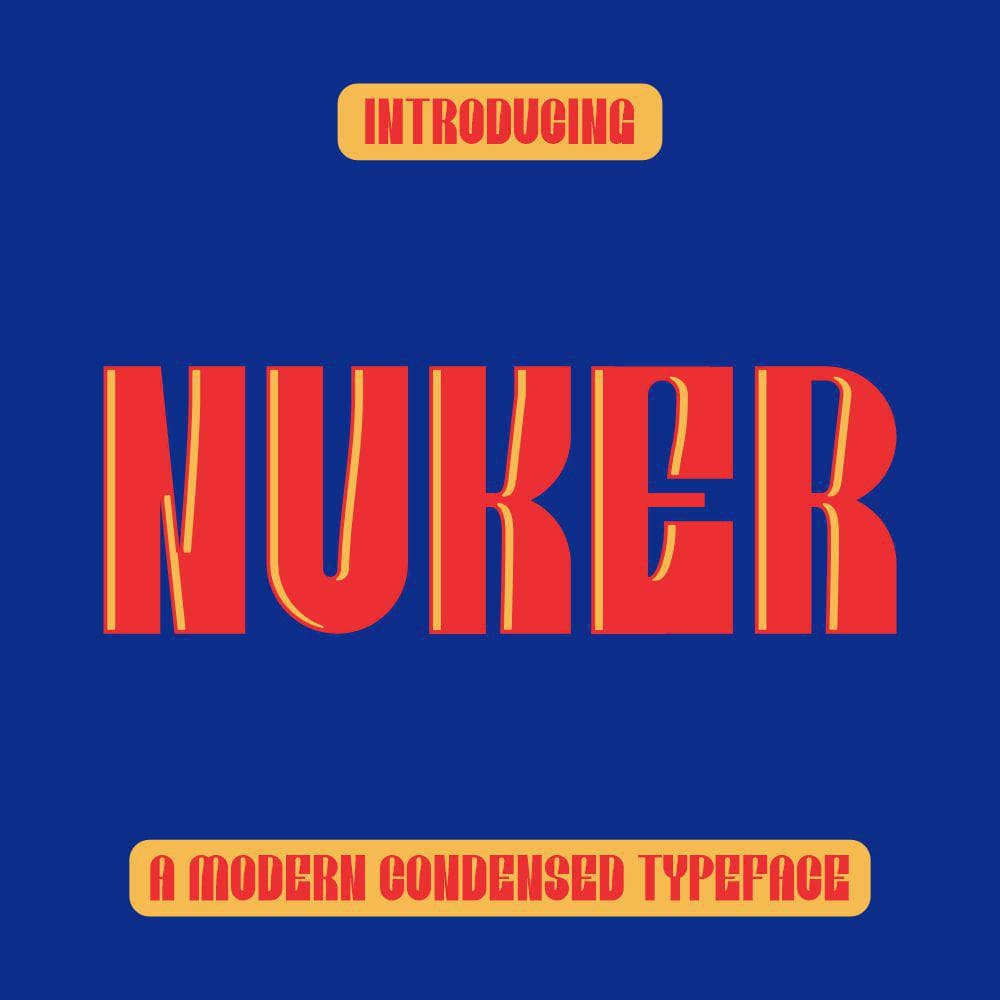
<p>Introducing <strong>Nuker</strong> typeface is a bold, modern, and condensed sans-serif font inspired by retro typography. It features strong geometric letterforms with a slightly rounded touch, making it ideal for eye-catching headlines, posters, and branding. The combination of high contrast, sharp edges, and vintage aesthetics gives it a unique, dynamic appearance. The use of bright red and yellow colors enhances its retro-futuristic appeal, making it perfect for designs that require a nostalgic yet modern touch.</p>